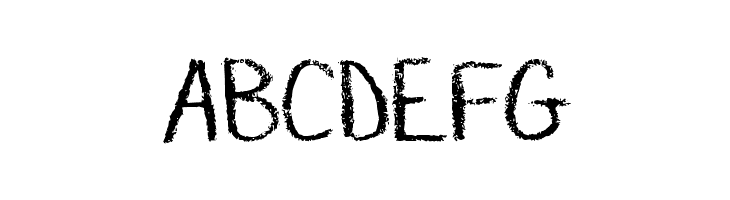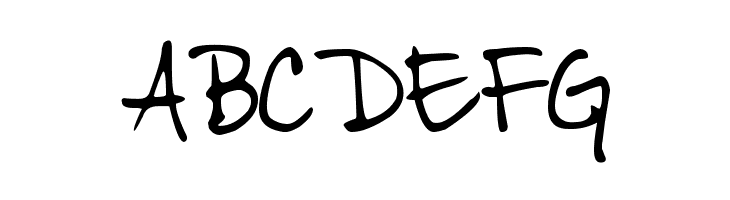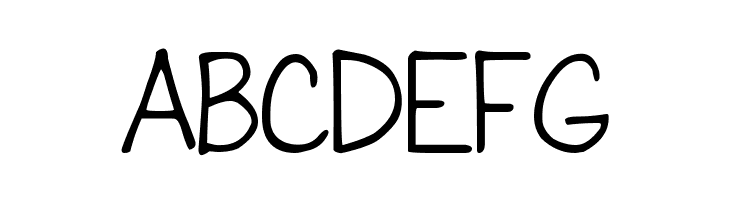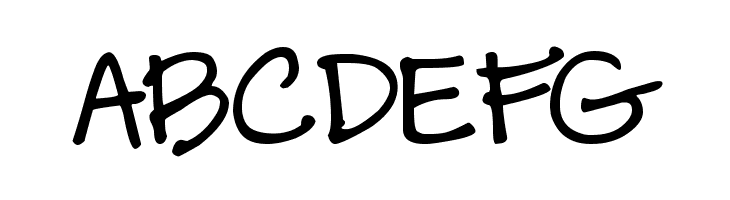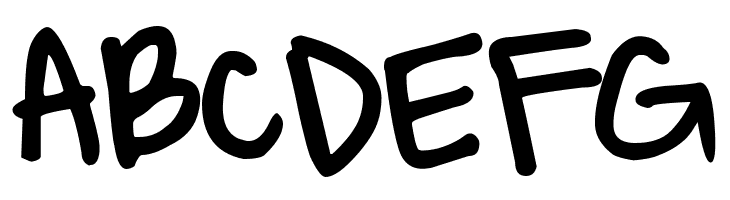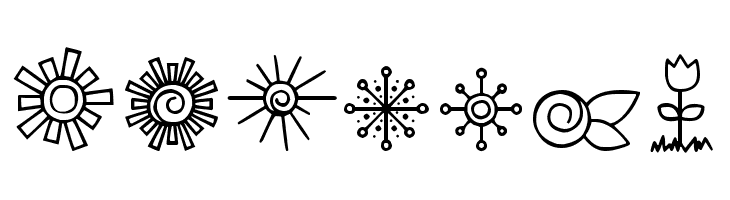
A bold, playful handwritten font with thick, rounded strokes.
A playful, handwritten font with thin, pen-like strokes and a casual style.
A playful, informal handwritten font with a whimsical and friendly style.
A playful, chalkboard-style font with a textured, hand-drawn appearance.
A playful, hand-drawn font with an energetic and sketch-like appearance.
A playful, handwritten font with rounded, bubbly characters and a casual style.
A playful, casual handwritten font with tall, narrow letters and whimsical strokes.
A playful, handwritten font with a quirky and friendly style.
A playful, handwritten font with rounded edges and a friendly appearance.
A playful, handwritten-style font with rounded edges and consistent stroke width.
A playful, casual handwritten font with fluid strokes and a natural flow.
A whimsical, handwritten font with playful curves and artistic flair.
A playful, hand-drawn font with quirky, irregular characters.
A casual script font with fluid, handwritten strokes and a natural, elegant style.
A whimsical and decorative font with playful curls and swirls.
A playful and casual handwritten font with a whimsical and dynamic style.
A playful handwritten font with a casual and dynamic style.
A playful and whimsical script font with flowing, connected letters.
A playful, hand-drawn font with a whimsical and doodle-like style.
A playful collection of hand-drawn doodle icons with a whimsical and artistic style.
A whimsical and decorative font with playful, unique letterforms.
A playful and whimsical font with dynamic curves and angles.
A playful, egg-shaped font with a hand-drawn, whimsical style.
A playful handwritten font with a casual and friendly vibe.
A whimsical, floral-themed decorative font with playful, curly lines.
A playful, bold font with rounded strokes and a friendly appearance.
A playful, handwritten-style font with a childlike, informal appearance.
A playful, handwritten font with a whimsical and informal style.
A lively, handwritten cursive font with a playful and dynamic style.
A bold, dynamic handwritten font with a lively and expressive style.
A playful, handwritten-style font with rounded, casual characters.